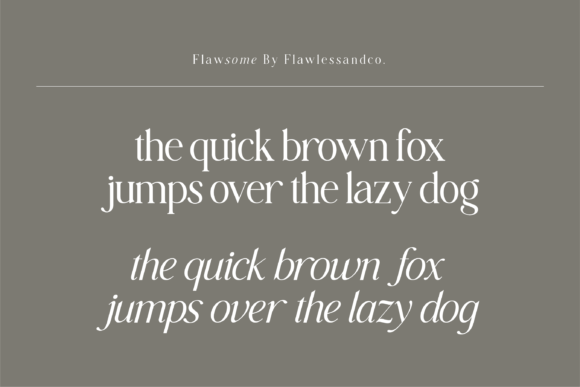
Flawsome Font
Flawsome is a stylish and modern italic serif font that combines traditional serif elements with contemporary design features. The font is characterized by its clean, elegant lines and unique, imperfect details that give it a handcrafted look. This font is perfect for adding a touch of sophistication to any design project, including branding, logos, headlines, titles, and more.